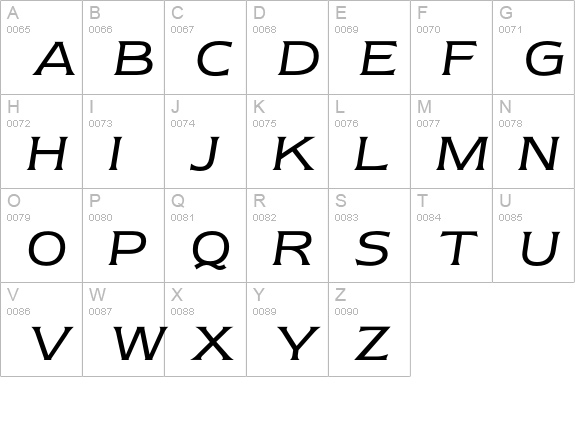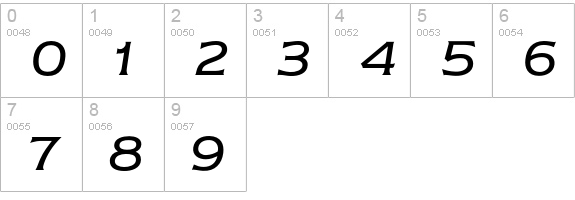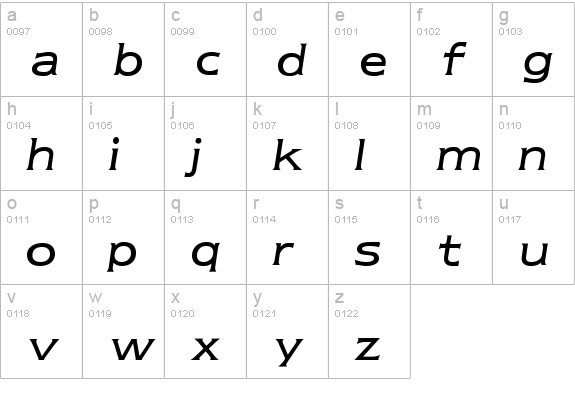
NewtextBookItalic Font Details
Introducing NewtextBookItalic font - a sleek and elegant typeface designed to add a touch of sophistication to your projects. Its distinct italic style exudes a sense of modernity and professionalism, making it perfect for a wide range of design applications. What sets NewtextBookItalic font apart is not just its aesthetic appeal, but also its accessibility. This premium font is available for free download at FontsMarket.com, allowing you to elevate your designs without breaking the bank. Whether you're working on a branding project, website design, or any other creative endeavor, NewtextBookItalic font is sure to make a lasting impression. With its clean lines and graceful curves, NewtextBookItalic font brings a sense of refinement to any design. Its versatility and readability make it a valuable addition to any designer's toolkit. Download NewtextBookItalic font today and take your projects to the next level.